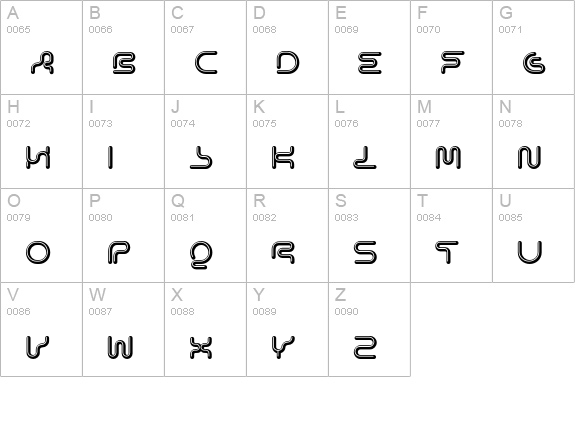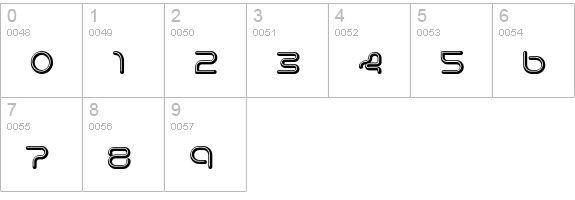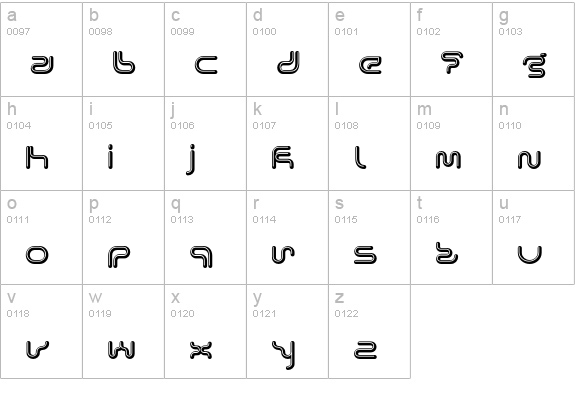
LexigraphA Font Details
Introducing LexigraphA, an exquisite font that effortlessly blends elegance with modernity. This font is a testament to the creative minds that seek to captivate their audience with a touch of sophistication. LexigraphA is designed with meticulous attention to detail, ensuring every curve and stroke is perfectly balanced, resulting in a harmonious visual experience. With its sleek and refined appearance, LexigraphA is versatile and adaptable, making it suitable for a wide range of design projects. Whether you're creating captivating logos, eye-catching headlines, or elegant invitations, this font is guaranteed to elevate your designs to new heights. But what truly sets LexigraphA apart is its availability. In a world where quality often comes with a hefty price tag, LexigraphA breaks the mold by being freely available to download. Yes, you read that right – this stunning font can be yours for absolutely no cost. FontsMarket.com is proud to offer LexigraphA as a free download, allowing designers and enthusiasts alike to access this exceptional font without any limitations. By making LexigraphA freely accessible, FontsMarket.com empowers creatives around the world to bring their visions to life. Whether you're a professional designer or an aspiring artist, this font is a valuable addition to your toolkit. Its timeless appeal and effortless charm ensure that your projects will always make a lasting impression. So, why settle for ordinary when you can have extraordinary? Download LexigraphA today from FontsMarket.com, and unlock a world of creative possibilities. With this font by your side, you'll effortlessly transcend the boundaries of design, leaving a lasting impact on everyone who encounters your work. Embrace the power of LexigraphA and embark on a journey of limitless creativity.